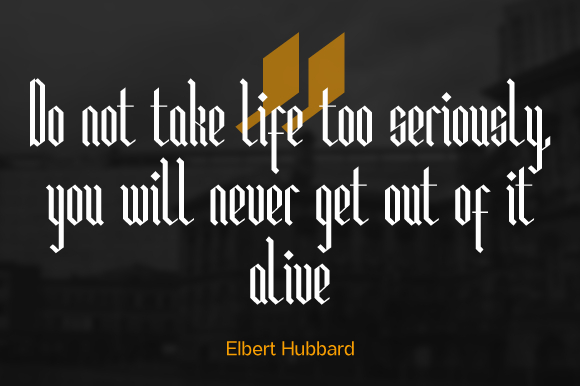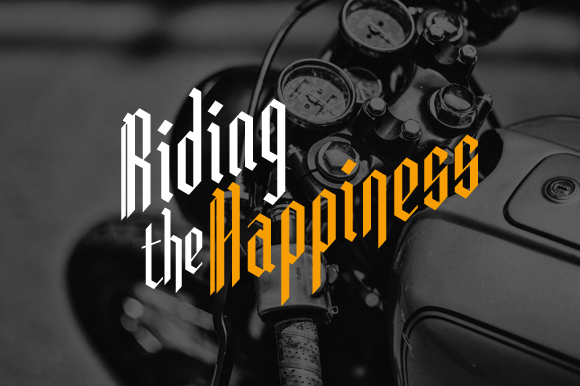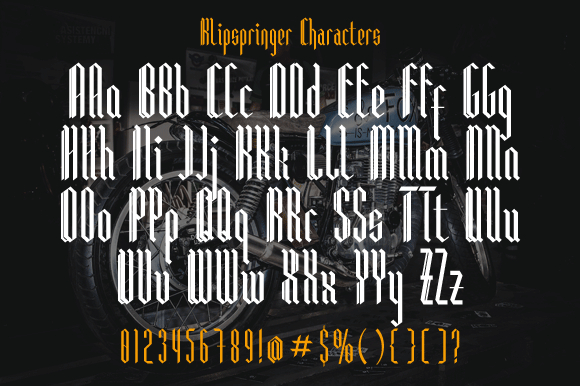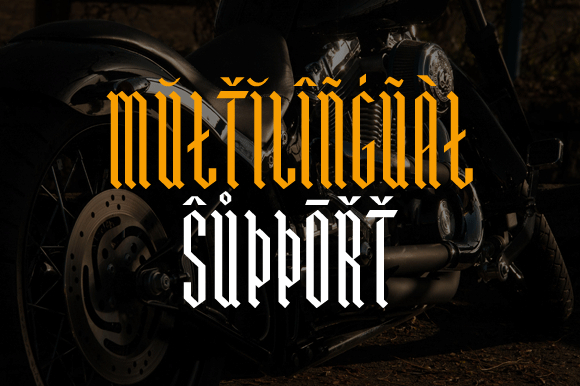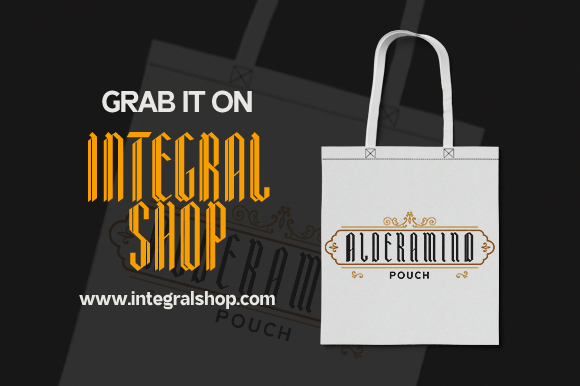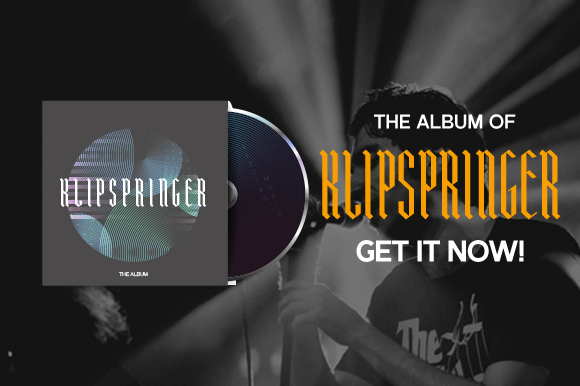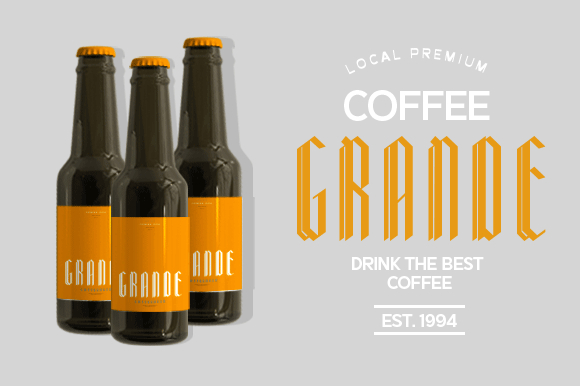
Klipspringer Font
About Klipspringer Font
Klipspringer is a highly detailed blackletter font. This font is PUA encoded which means you can access all of the glyphs and swashes with ease!